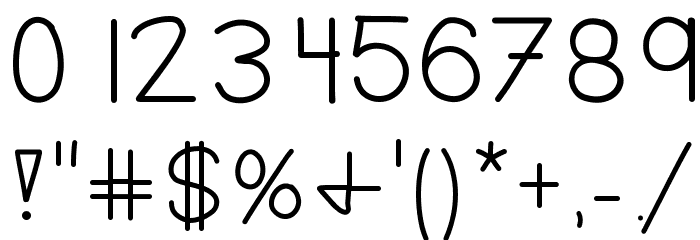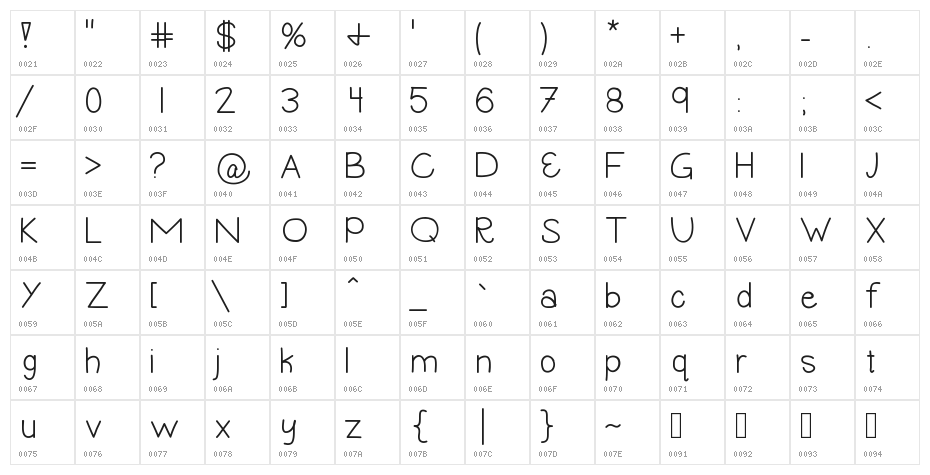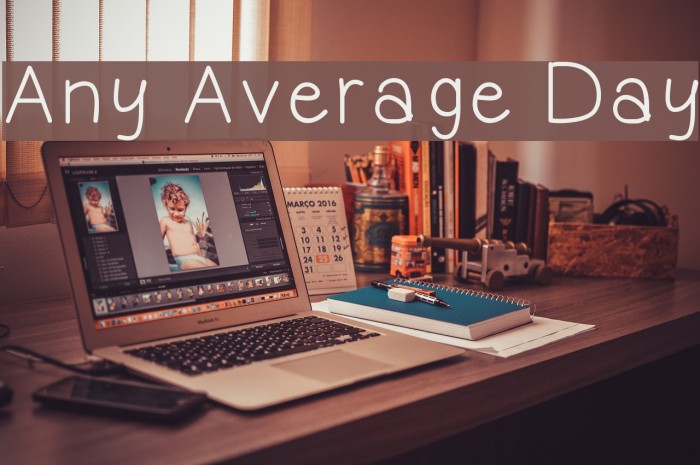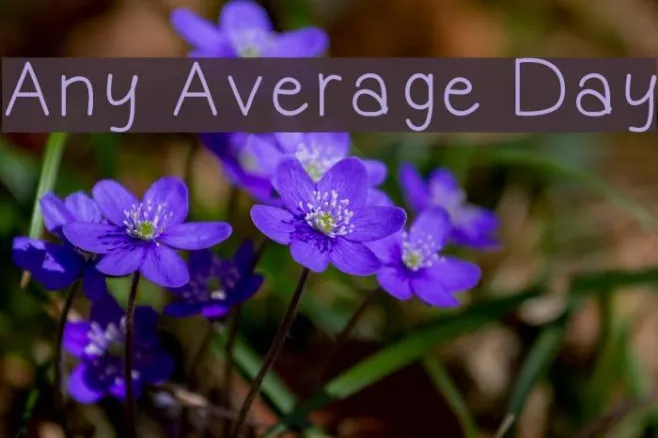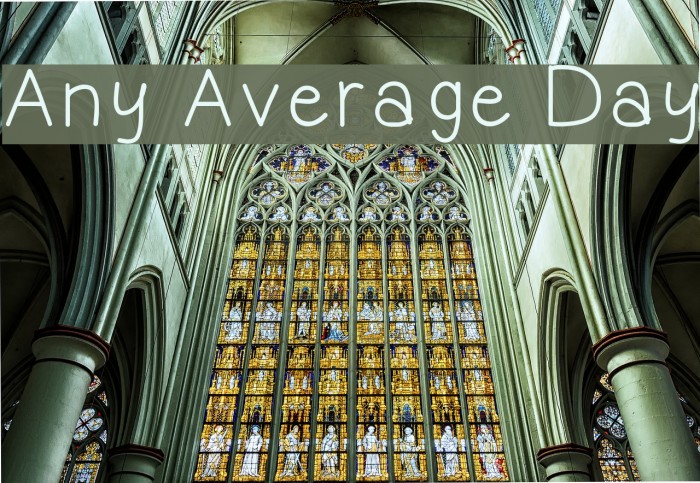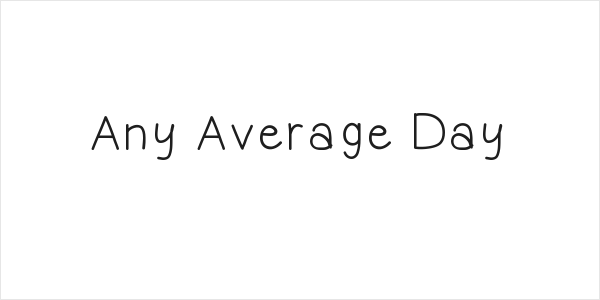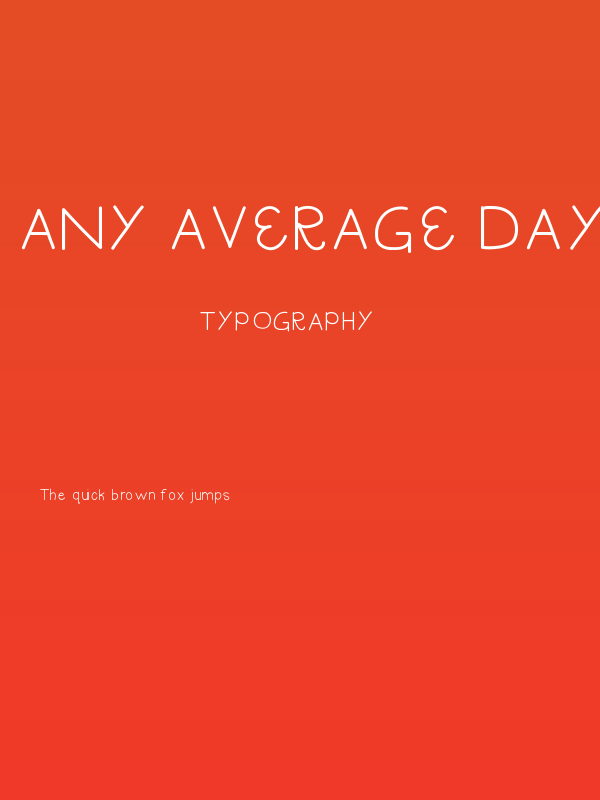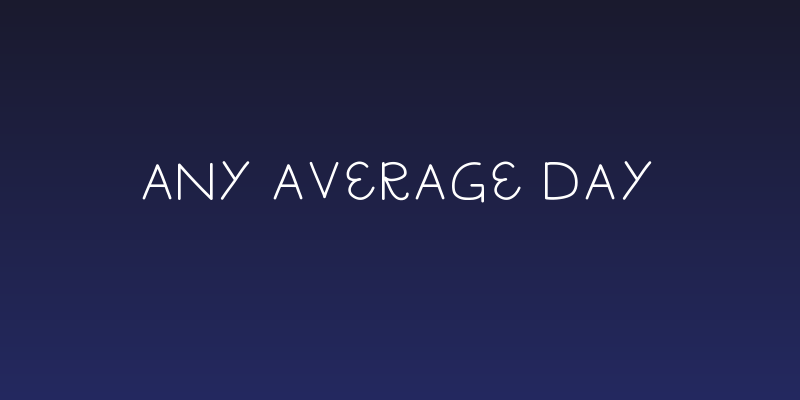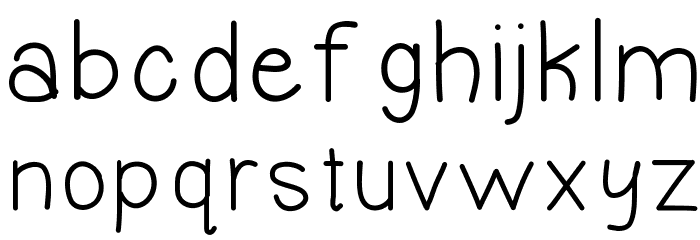
Any Average Day Font
Any Average Day Description
This font features a clean and simple design with a handwritten feel, characterized by rounded edges and consistent stroke widths. The uppercase letters are slightly taller than the lowercase, maintaining a uniform appearance. The numerals and special characters are crafted to match the overall style, ensuring readability and a friendly aesthetic. The font's simplicity and clarity make it versatile for various applications, from casual to professional settings.
| Proposed Projects | Ideal for children's books, casual branding, greeting cards, and educational materials. |